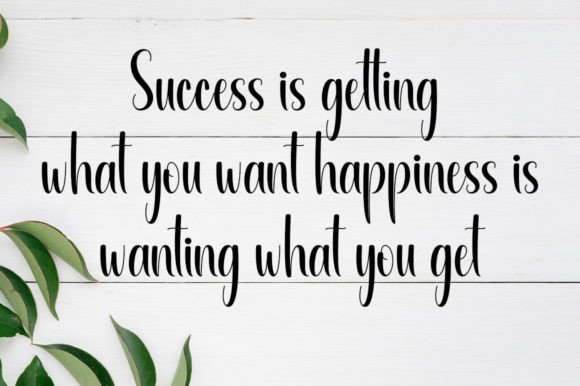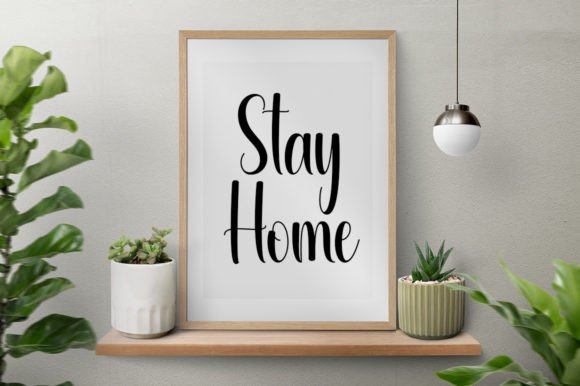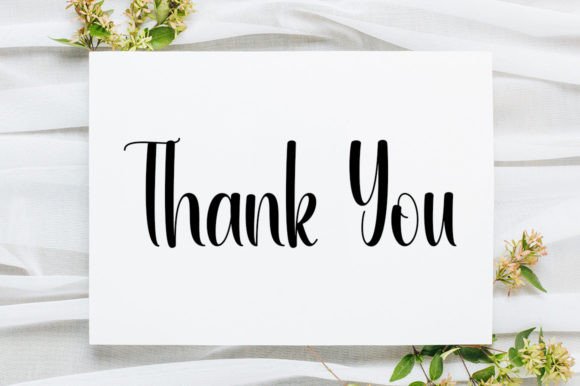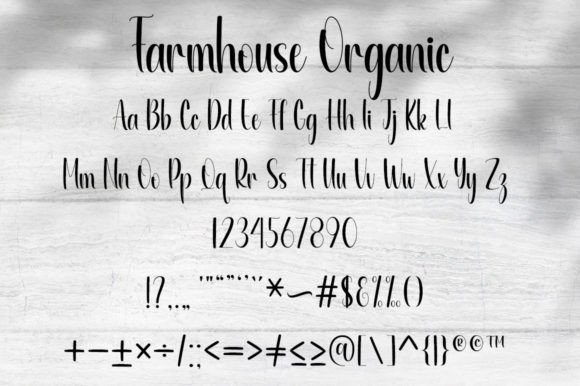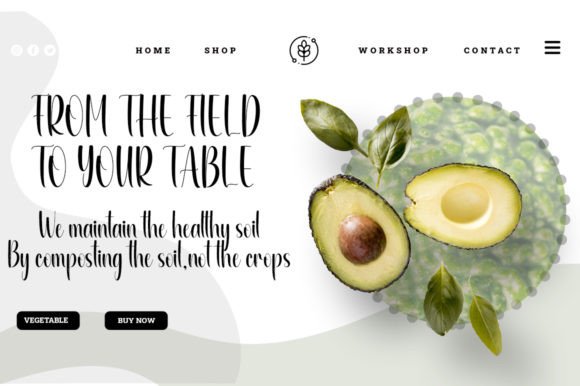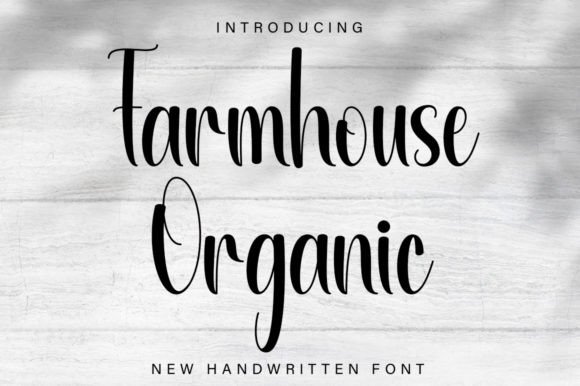
Discover the Charm of Farmhouse Organic Font: Elevate Your Designs with a Touch of Elegance
Are you a designer or crafter looking for a font that exudes charm and elegance? Look no further than the Farmhouse Organic Font. This beautiful, handwritten font is perfect for adding a personal touch to a variety of designs, from wedding invitations and thank you cards to logos and business cards.
What is Farmhouse Organic Font?
Farmhouse Organic Font is a unique and stylish font that features a distinctive, handwritten aesthetic. With its organic and flowing lines, this font is sure to add a touch of warmth and personality to any design. Its elegant and charming appearance makes it perfect for a wide range of projects, from formal wedding invitations to more casual greeting cards and quotes.
Key Features of Farmhouse Organic Font
- Handwritten aesthetic: Farmhouse Organic Font features a beautiful, handwritten look that adds a personal touch to any design.
- Elegant and charming: This font exudes elegance and charm, making it perfect for designs that require a sophisticated appearance.
- Organic and flowing lines: The font’s organic and flowing lines give it a natural, effortless look that’s sure to capture the attention of your audience.
- Versatile: Farmhouse Organic Font can be used for a wide range of designs, from wedding invitations and thank you cards to logos and business cards.
Uses for Farmhouse Organic Font
Farmhouse Organic Font is a versatile font that can be used for a variety of designs, including:
- Wedding invitations: Add a touch of elegance and sophistication to your wedding invitations with Farmhouse Organic Font.
- Thank you cards: Express your gratitude in style with this beautiful font.
- Quotes: Make your quotes stand out with the charming and elegant appearance of Farmhouse Organic Font.
- Greeting cards: From birthday cards to holiday cards, this font is perfect for adding a personal touch to your greetings.
- Logos: Use Farmhouse Organic Font to create a unique and memorable logo for your business.
- Business cards: Elevate your business cards with the sophisticated appearance of this font.
Why Choose Farmhouse Organic Font?
There are many reasons why designers and crafters choose Farmhouse Organic Font for their projects. Here are just a few:
- Unique and distinctive: This font stands out from more traditional fonts, adding a touch of personality to your designs.
- Elegant and sophisticated: Farmhouse Organic Font exudes elegance and sophistication, making it perfect for formal and informal designs.
- Easy to read: Despite its handwritten aesthetic, this font is easy to read and understand, making it perfect for a wide range of designs.
- High-quality: Farmhouse Organic Font is a high-quality font that’s designed to deliver exceptional results.
Tips for Using Farmhouse Organic Font
To get the most out of Farmhouse Organic Font, here are a few tips to keep in mind:
- Use it sparingly: While Farmhouse Organic Font is beautiful, it can be overwhelming if used too much. Use it sparingly to add a touch of elegance to your designs.
- Pair it with other fonts: Experiment with pairing Farmhouse Organic Font with other fonts to create a unique and interesting look.
- Adjust the size and color: Play around with different sizes and colors to find the perfect combination for your design.
Farmhouse Organic Font is a beautiful and versatile font that’s perfect for designers and crafters looking to add a touch of elegance and charm to their designs. With its handwritten aesthetic, elegant appearance, and organic lines, this font is sure to capture the attention of your audience. Whether you’re creating wedding invitations, thank you cards, logos, or business cards, Farmhouse Organic Font is a great choice.